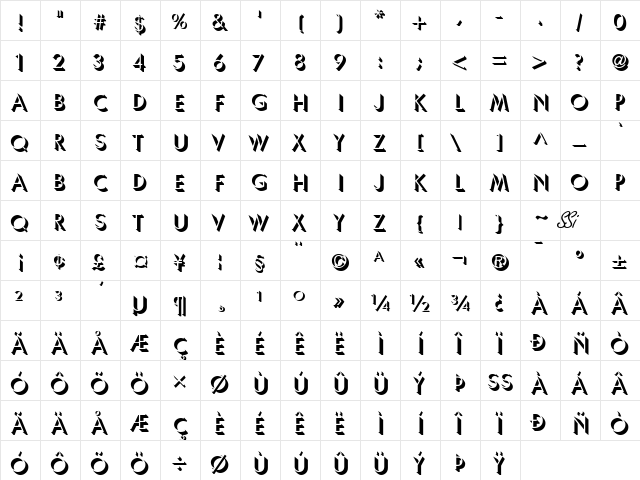
Shadow SSi Regular
Design Context for Shadow SSi Typeface
Shadow SSi brings ornamental detail and strong personality to headlines and identities, where visual impact matters more than quiet functionality.
Font Pairing: Pair with a clean neutral sans-serif for body copy to let Shadow SSi's character lead without overwhelming the composition.
Pro Tip: Treat Shadow SSi as the centrepiece of your typographic hierarchy. One strong heading set in a decorative face can carry an entire layout.